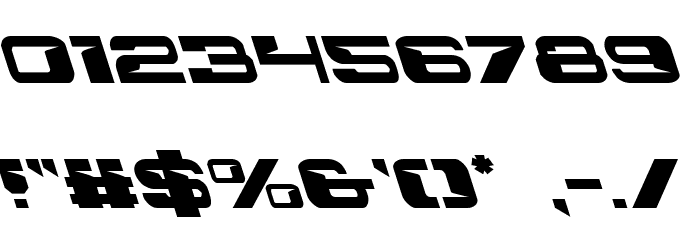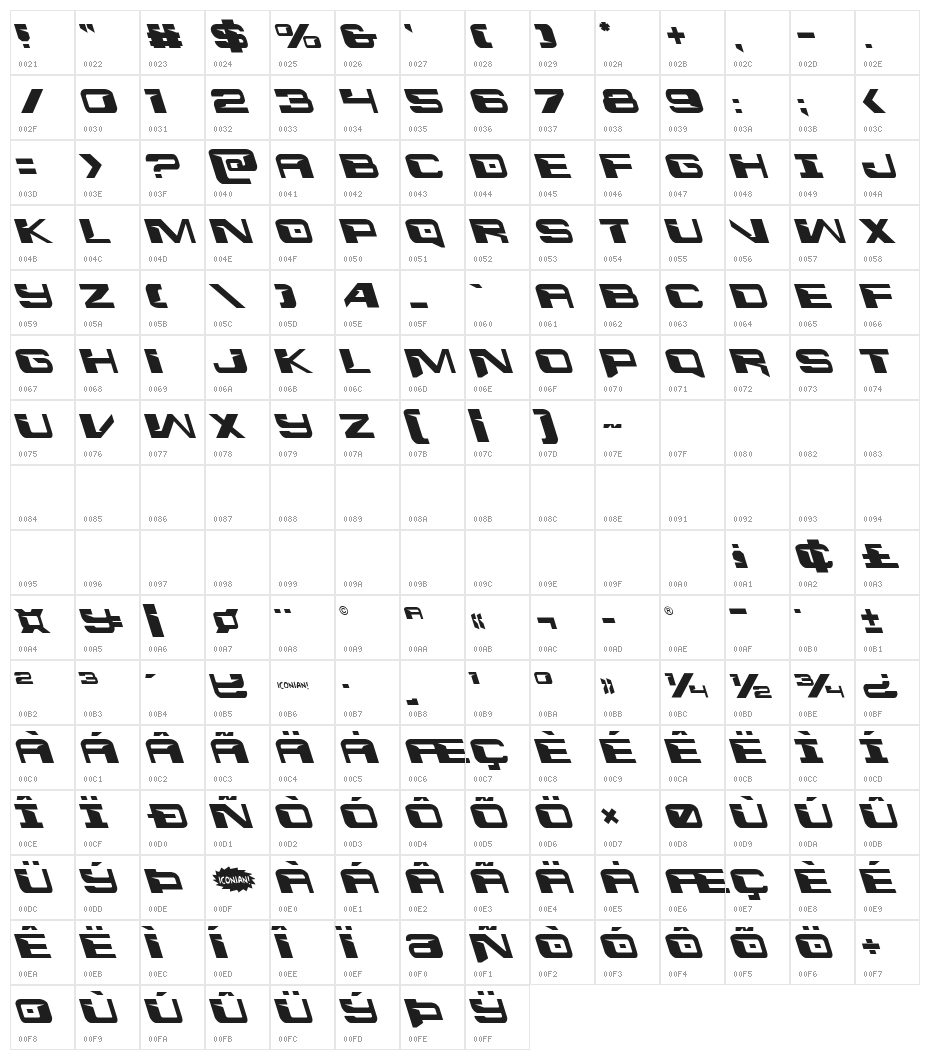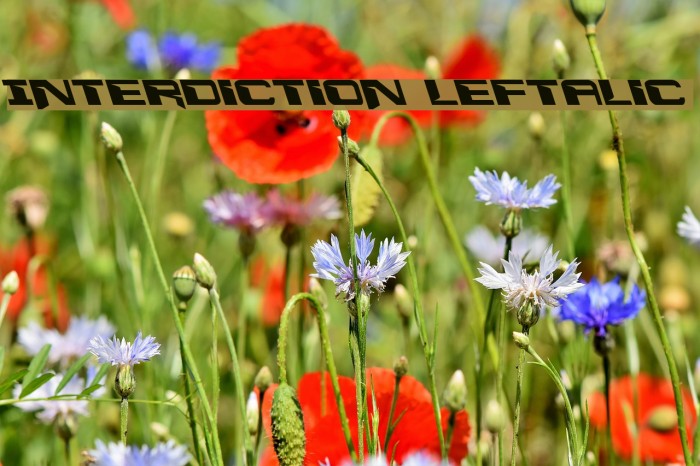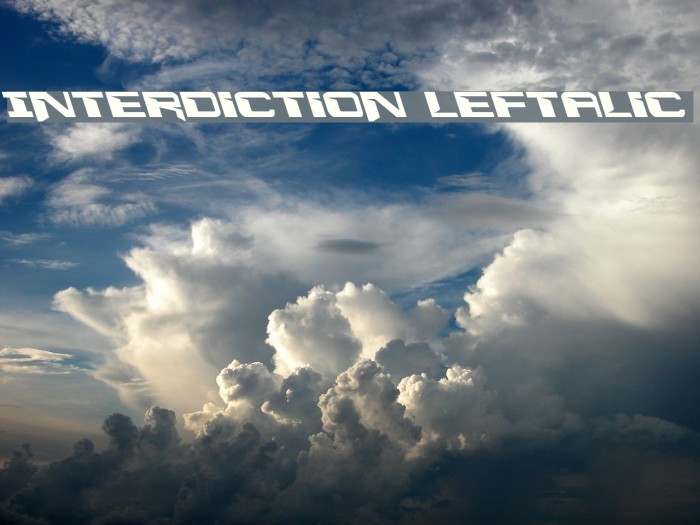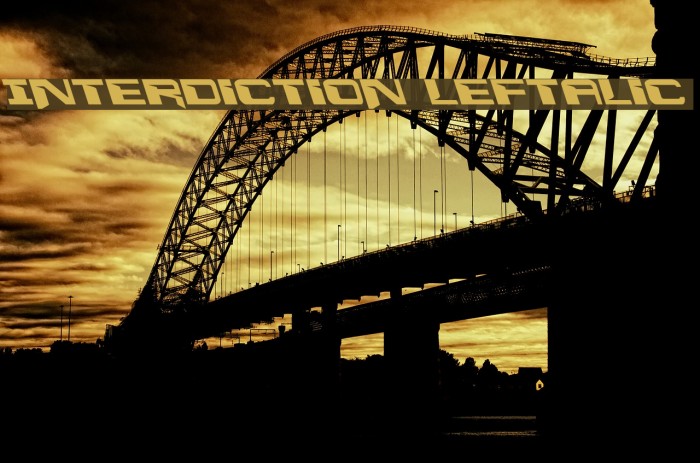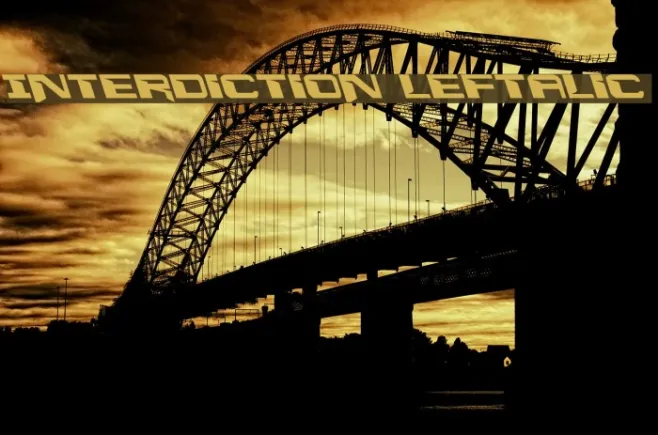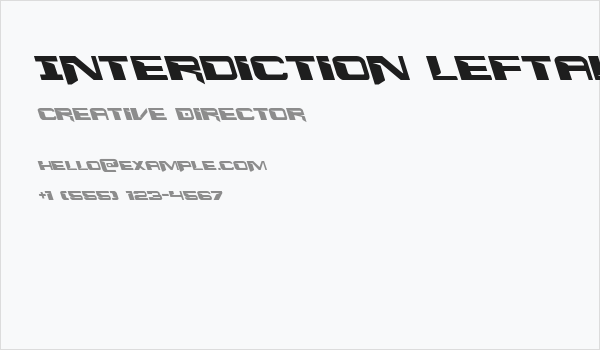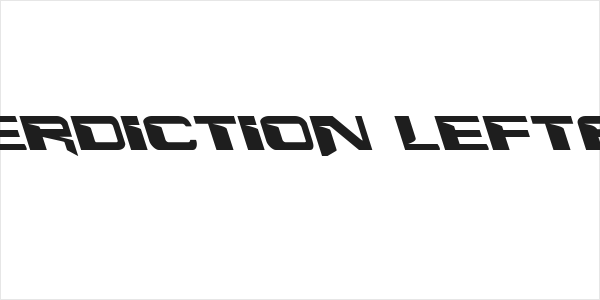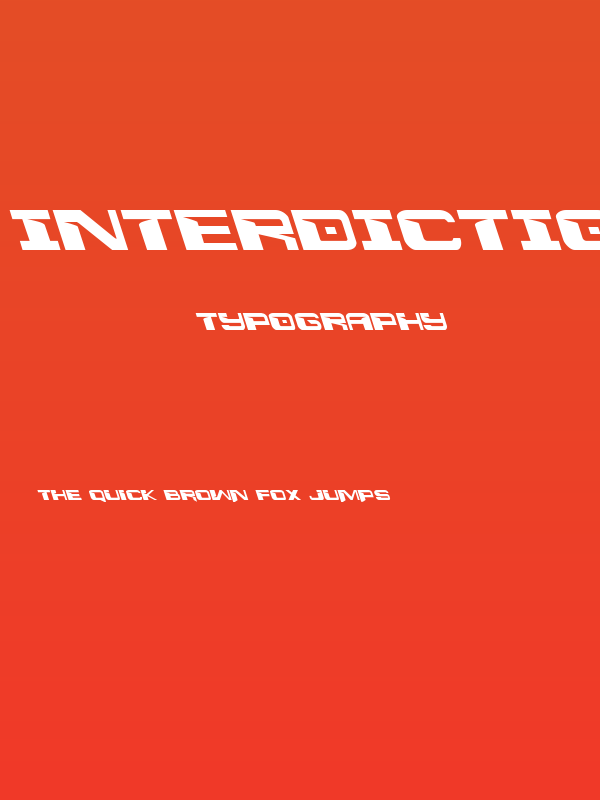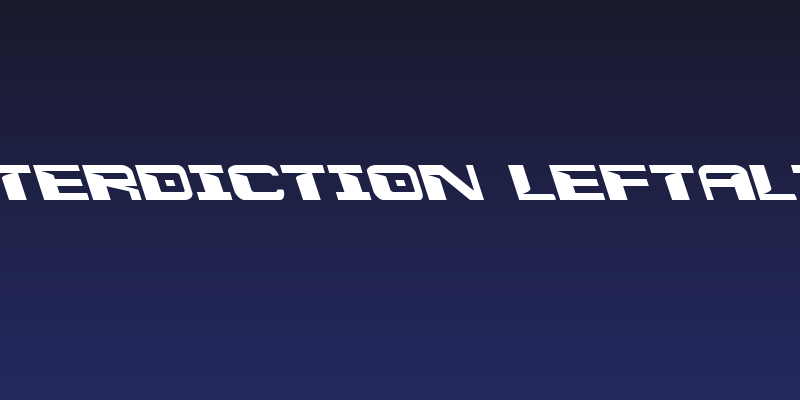
Interdiction Leftalic Font
Interdiction Leftalic Description
This font features a bold and dynamic design with a futuristic and angular style. The characters are sharply cut with distinct geometric shapes, giving it a modern and edgy appearance. The slanted orientation adds a sense of motion and speed, making it ideal for projects that require a sense of urgency or forward-thinking. The uppercase and lowercase letters maintain a consistent style, while the numbers and special characters complement the overall aesthetic. The font's unique design makes it stand out, perfect for eye-catching headlines or branding that aims to convey innovation.
| Proposed Projects | Ideal for technology branding, sci-fi movie posters, video game titles, and modern advertising campaigns. |